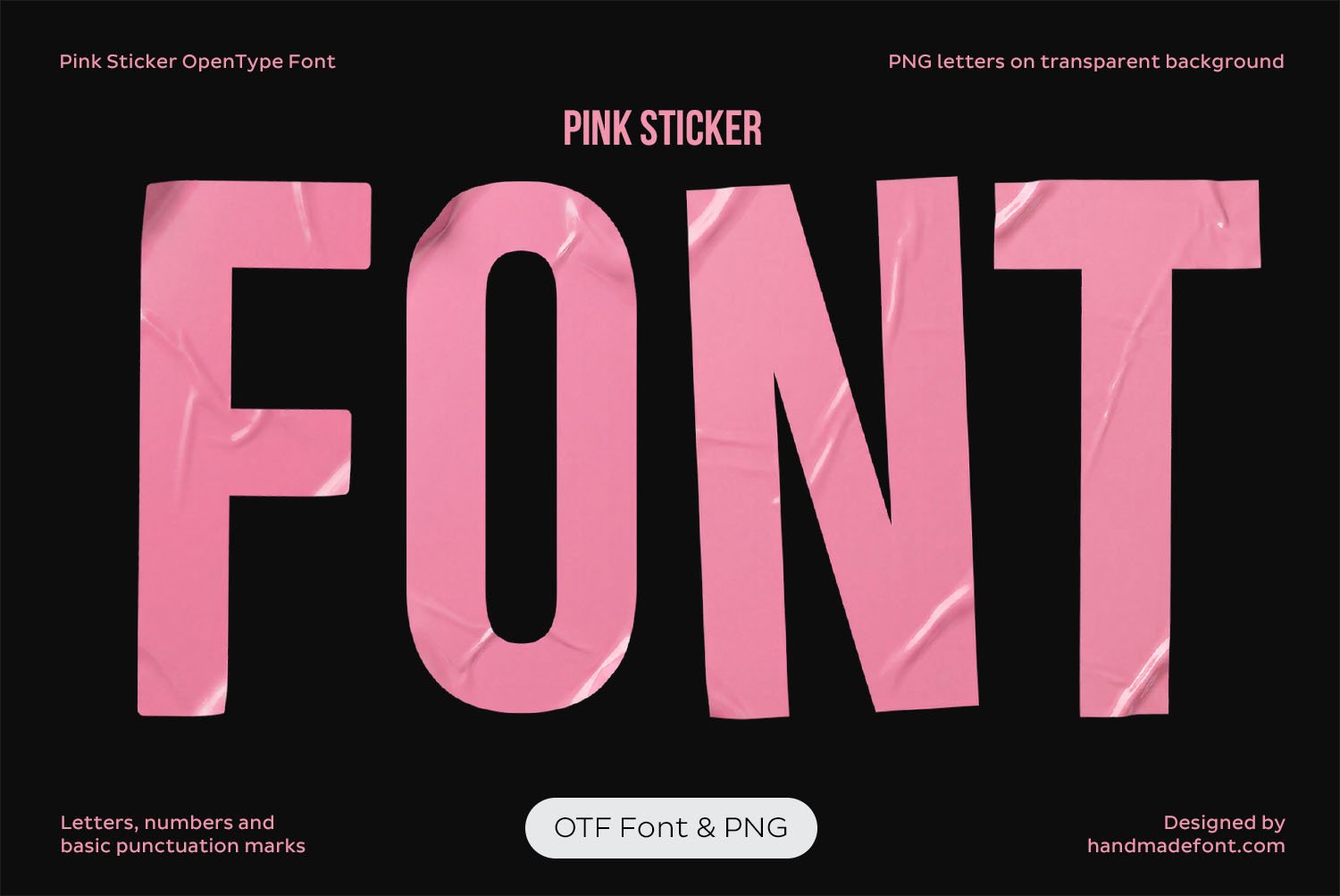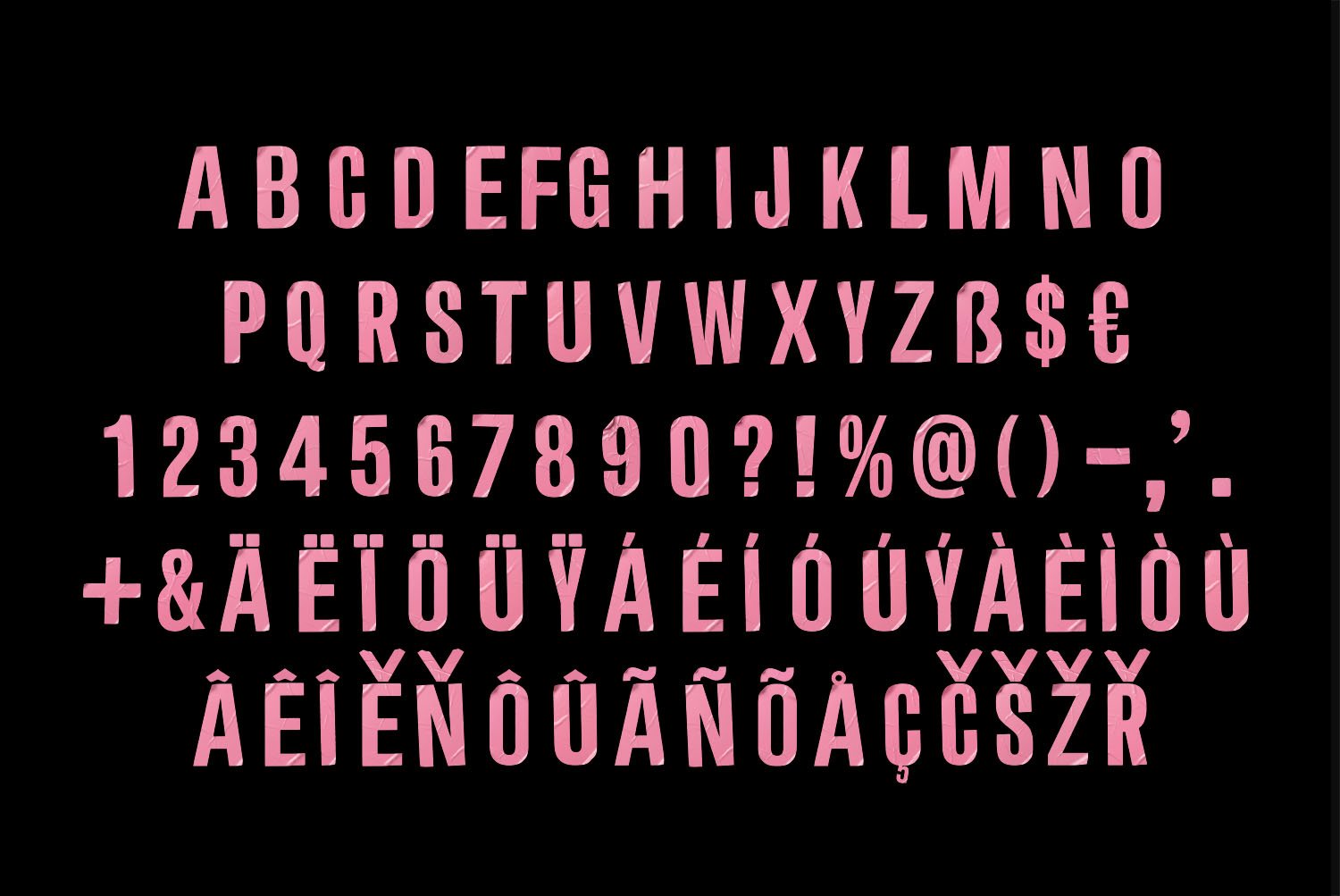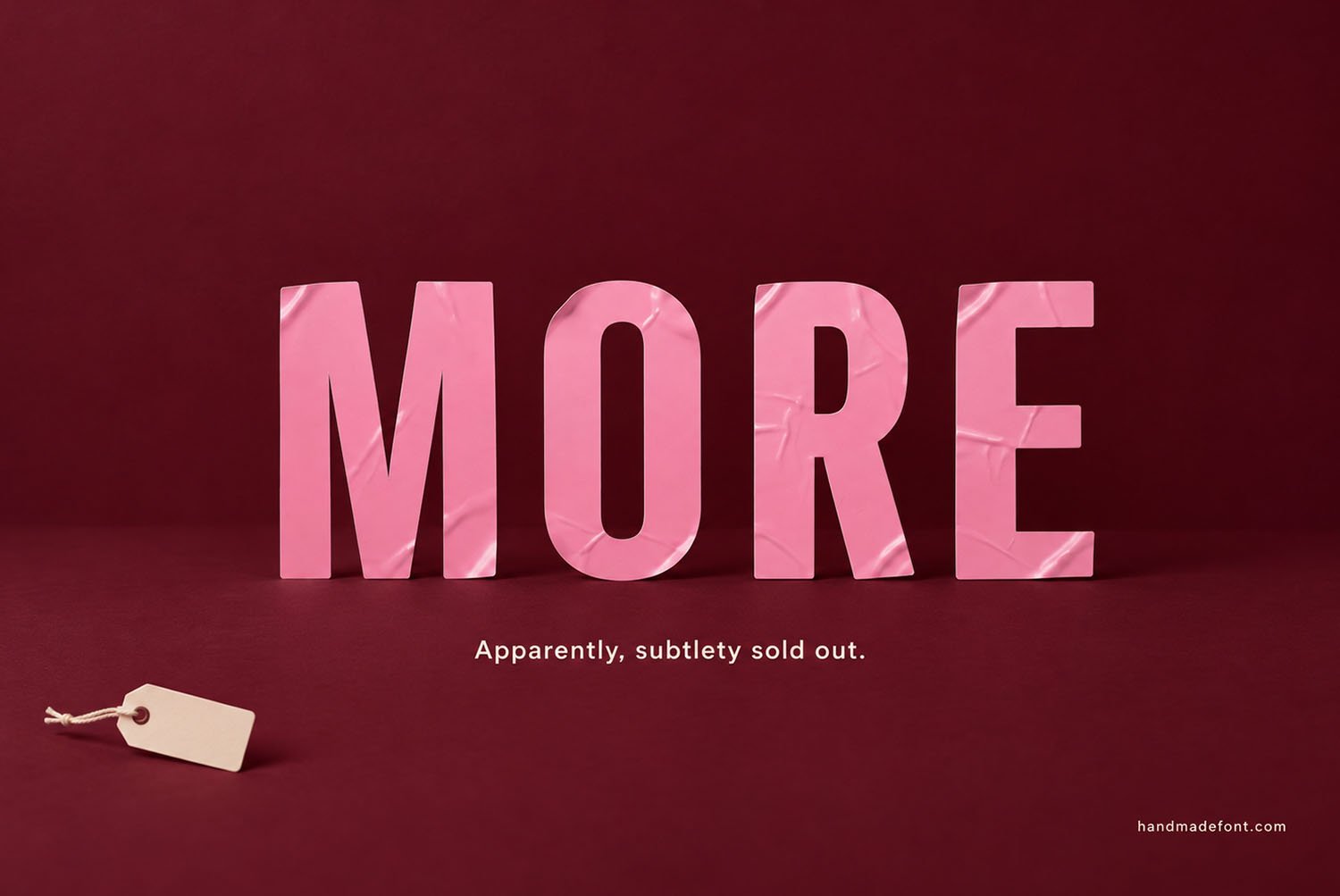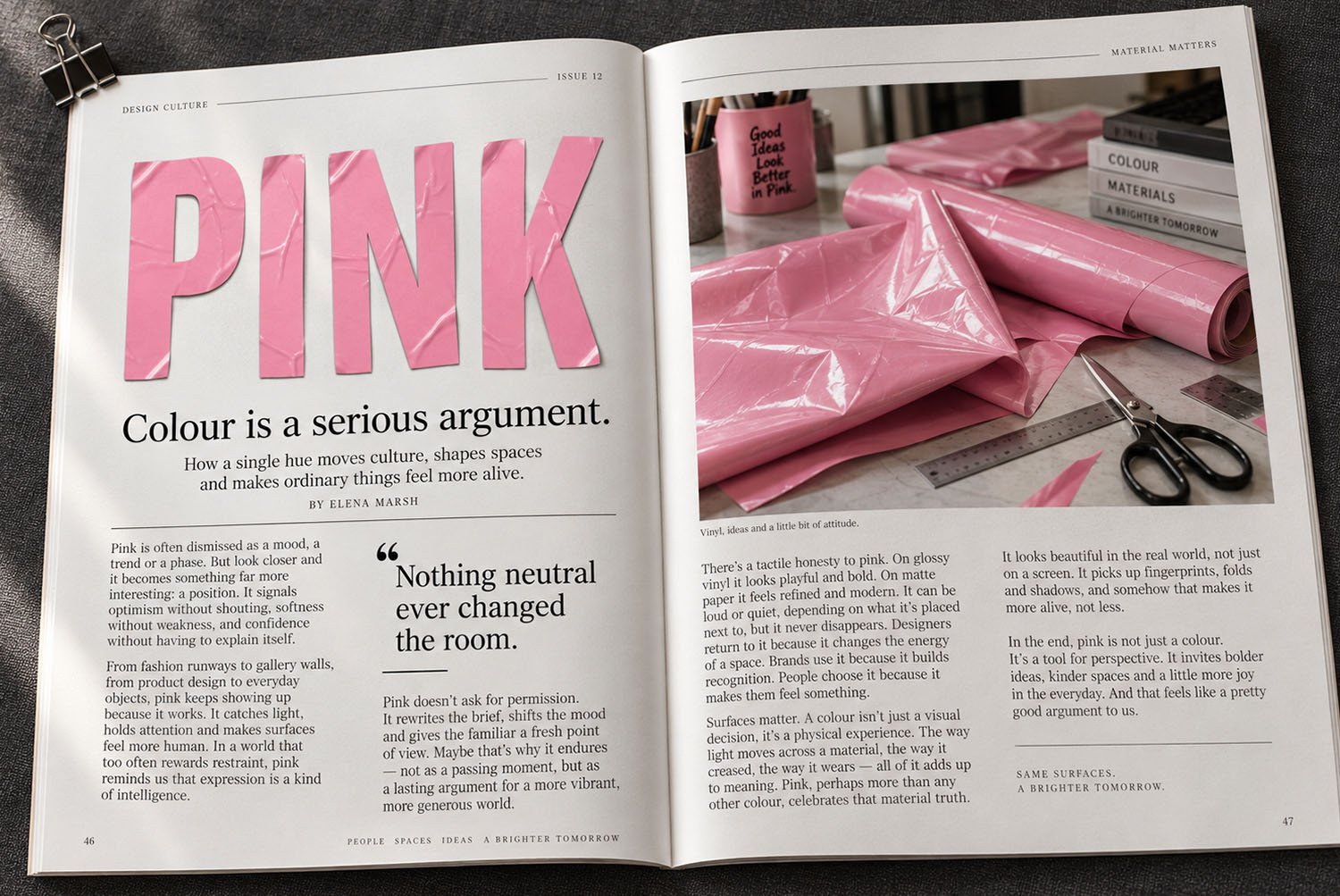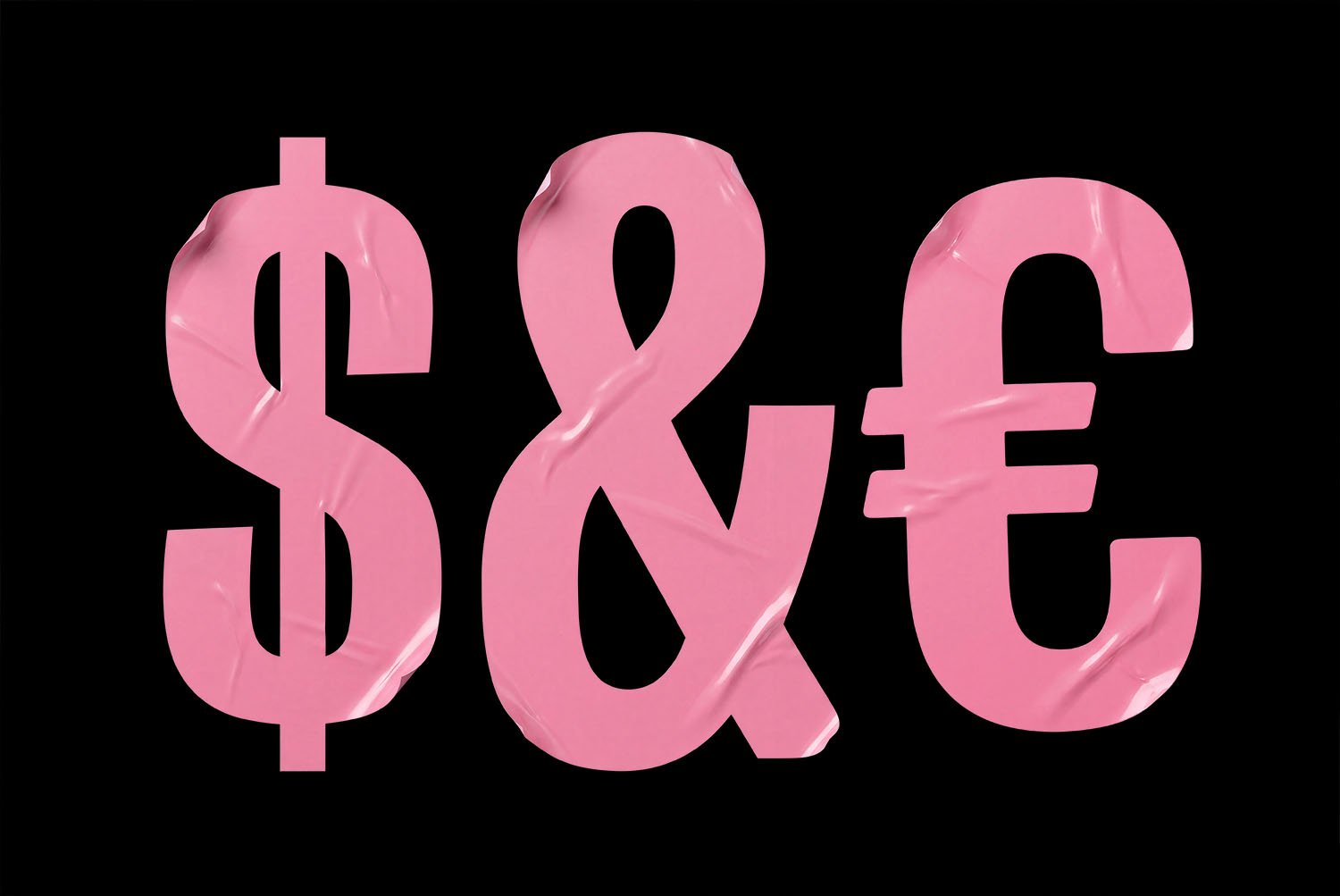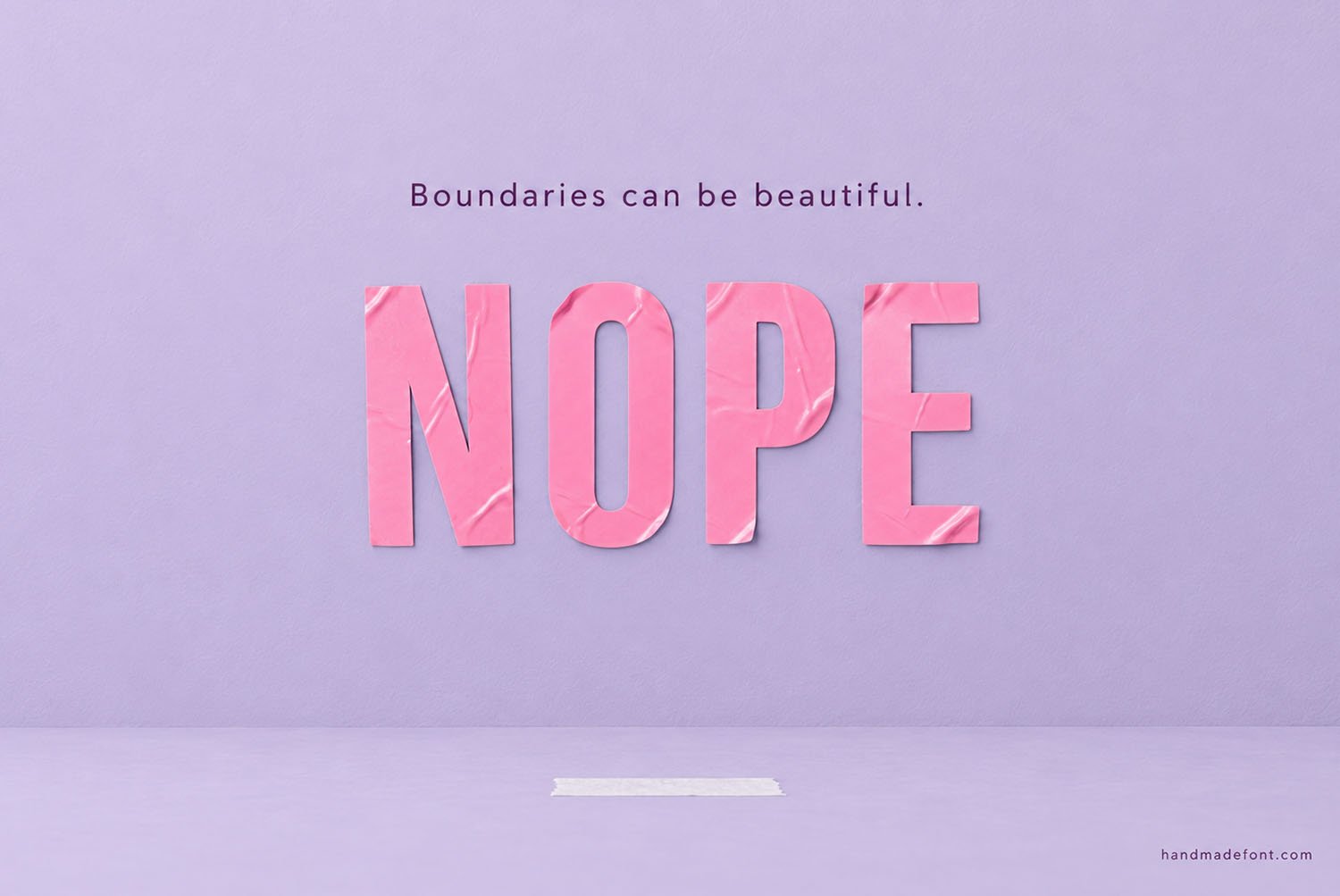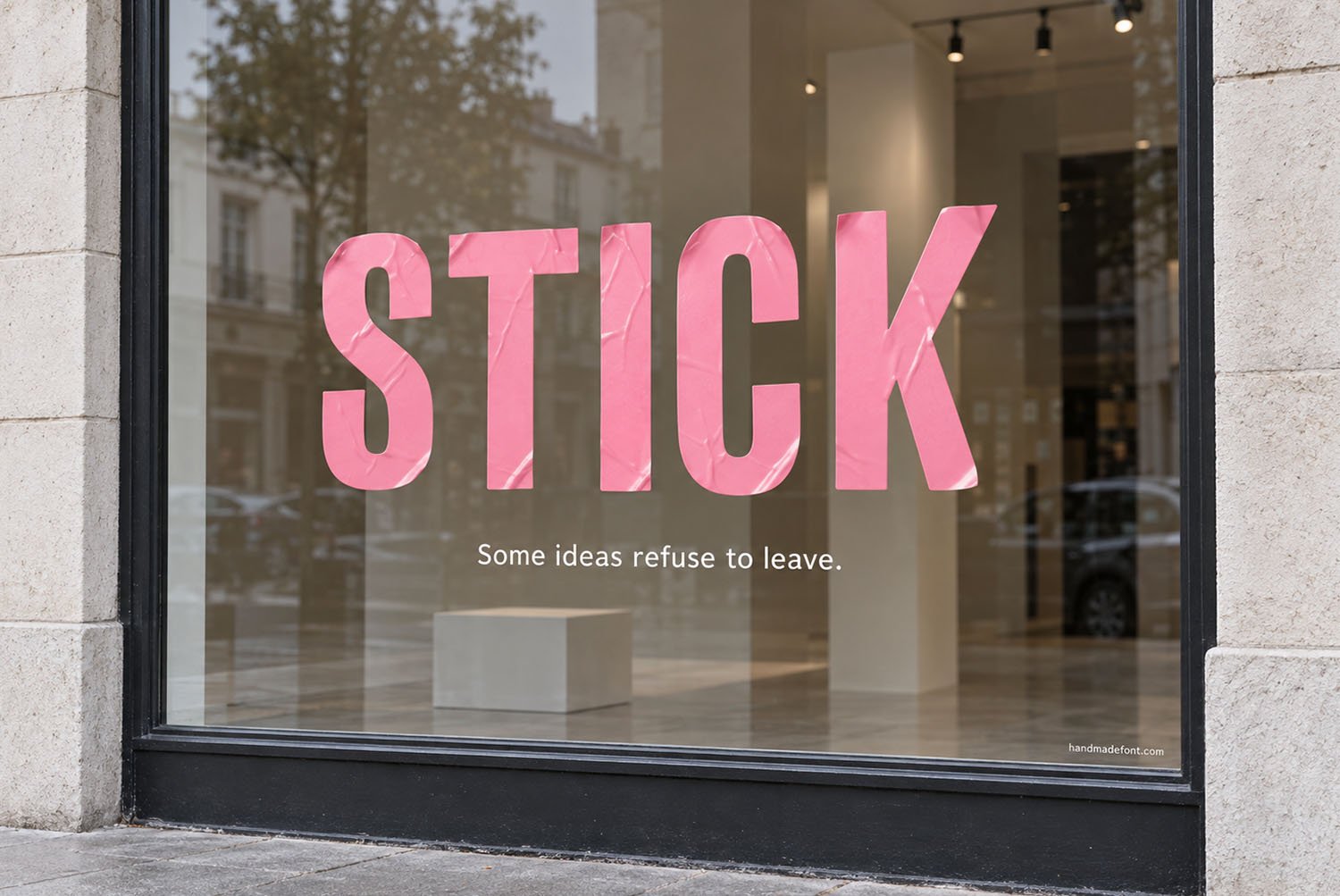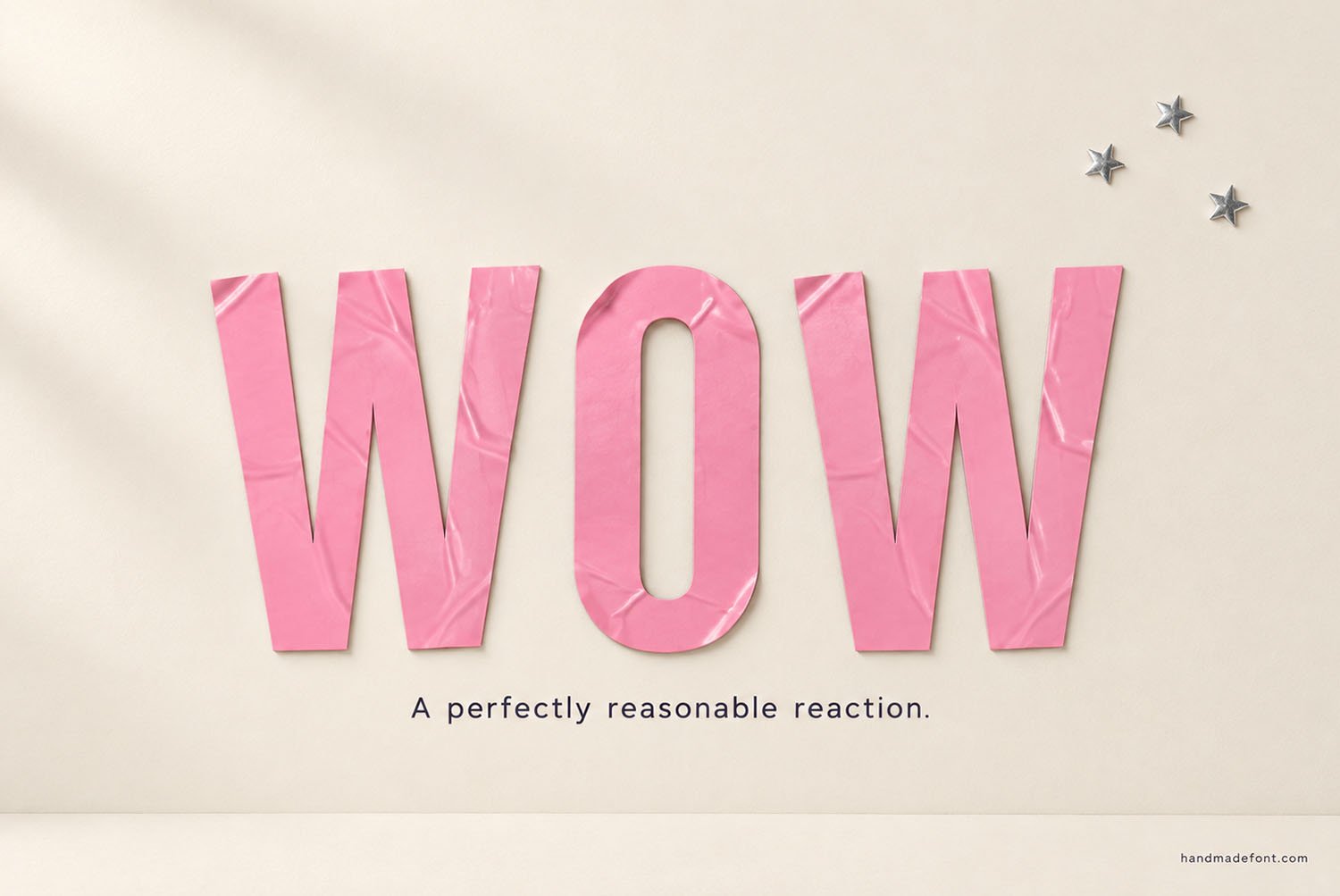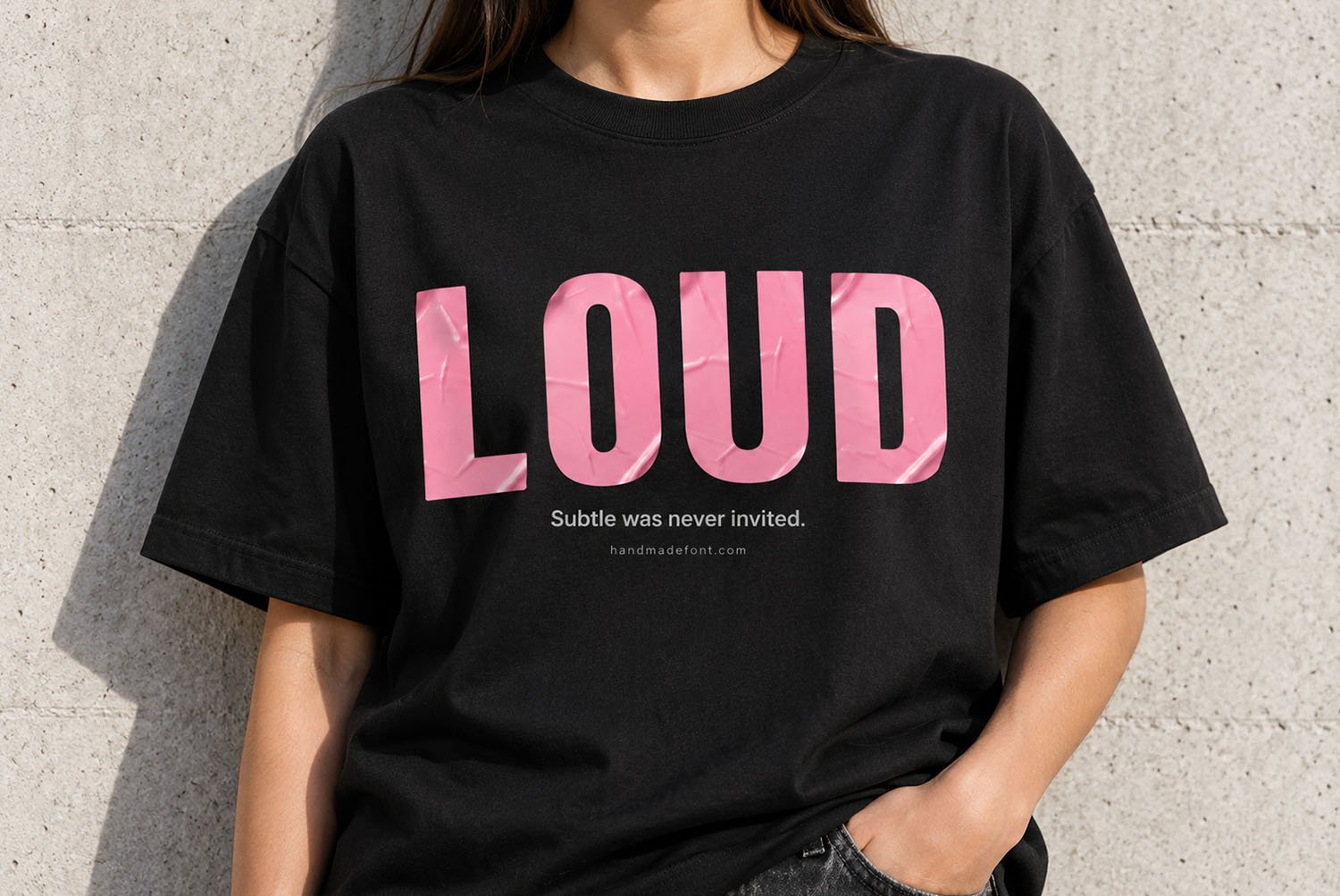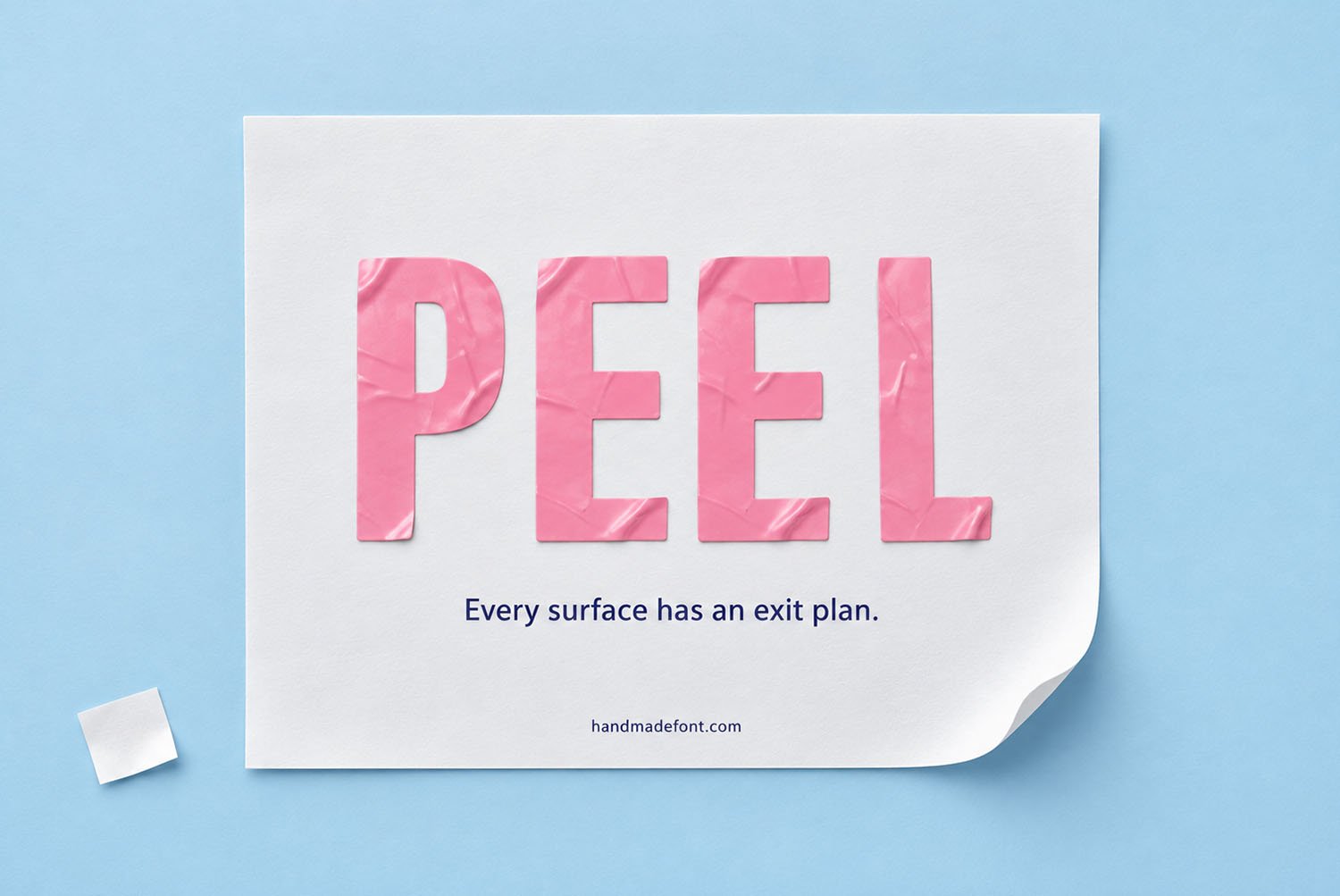
Pink Sticker Font
Pink Sticker Font is a bold display typeface inspired by glossy adhesive vinyl, playful labels, and handmade cutout lettering. Its tall, condensed characters feature realistic folds, wrinkles, and highlights, creating a tactile style that feels modern and mischievous. This font is perfect for posters, packaging, branding, social media graphics, headlines, invitations, and colorful editorial projects. The package includes an easy-to-use OTF font, together with every letter, number, and punctuation mark supplied separately as a high-resolution PNG file on a transparent background. Add bright energy and memorable personality to your designs.
Letters : ABCDEFGHIJKLMNOPQRSTUVWXYZß
ÄËÏÖÜŸÁÉÍÓÚÝÀÈÌÒÙÂÊÎĚŇÔÛÃÑÕÅÇČŠŽŘ
Others : ! ? - . ' $ € % & # @